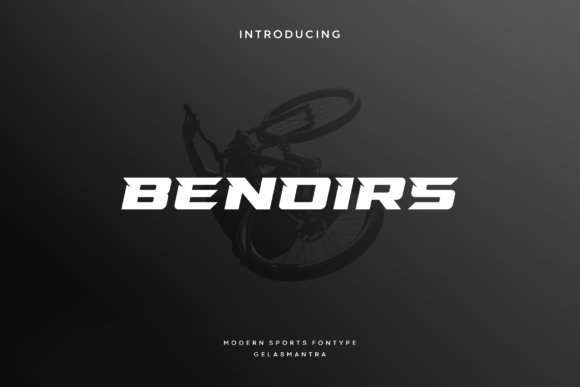
The Ultimate Sports Font: Benoirs – Power, Speed, and Style
I’ll never forget the time I was working on a project for a client’s sports brand. I had to create a logo that exuded speed, power, and dynamism. The catch? The client wanted a font that was not only visually stunning but also legible at various sizes. I scoured the internet, tried out numerous fonts, but none seemed to fit the bill. That was until I stumbled upon Benoirs Font. 🚀
An Honest Review of Benoirs Font
Benoirs Font is an awesome sports font that has become a staple in my design toolkit. Here’s what I love about it:
- ✨ Modern cutouts that give it a sleek, contemporary look
- ✅ Dynamic slant that conveys speed and movement
- ⚡️ Highly legible even at small sizes, making it perfect for a variety of applications
- 🎨 Versatile and can be used for various sports-related projects, from car racing to cycling
While Benoirs Font is an excellent choice, it’s not without its quirks:
- 🤔 Some users might find the font’s dynamic slant a bit challenging to work with, especially for body text
- ⚠️ Limited availability of certain OpenType features, which might be a drawback for advanced users
Benoirs Font was designed with the intention of creating a modern, dynamic sports font that would capture the essence of speed and power. The designer aimed to craft a font that would be both visually striking and highly legible, making it perfect for a variety of sports-related projects. While the designer’s background and inspiration are shrouded in mystery, it’s clear that Benoirs Font was created with the needs of designers and creatives in mind.
| What is Benoirs Font best suited for? | Benoirs Font is ideal for sports-related projects, such as car racing titles, running matches, cycling, automotive game logos, and monograms. |
| Is Benoirs Font legible at small sizes? | Yes, Benoirs Font is highly legible even at small sizes, making it perfect for a variety of applications. |
| Does Benoirs Font support OpenType features? | Benoirs Font supports some OpenType features, including stylistic alternates and glyphs. |
In conclusion, Benoirs Font is an excellent choice for designers, crafters, and creative hobbyists looking for a modern, dynamic sports font. With its sleek design, high legibility, and versatility, Benoirs Font is sure to become a staple in your design toolkit.